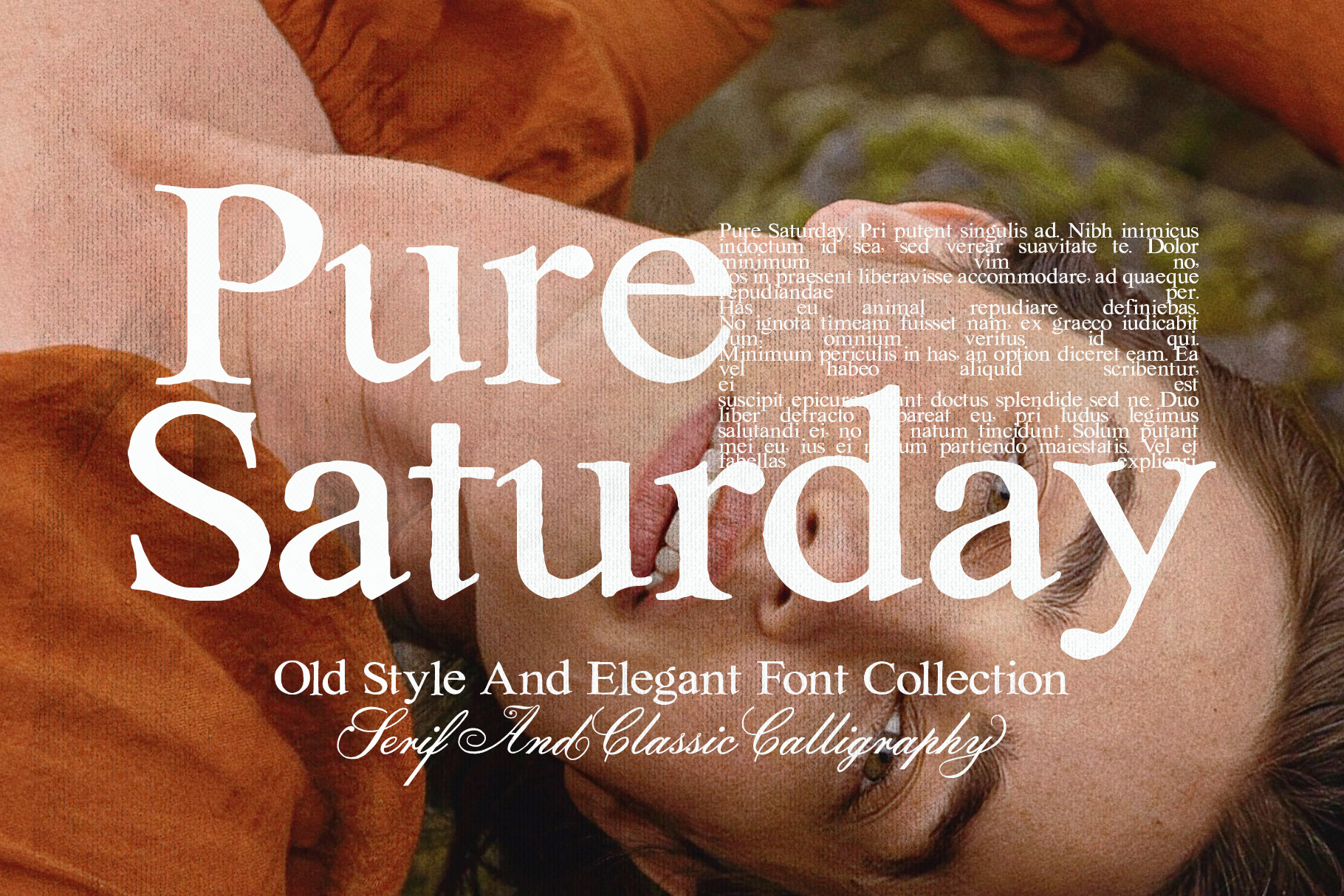
Pure Saturday - Font Duo
Pure Saturday are two classic styled fonts, written with great care to give each character a rough textured feel.
With this font you can create designs such as wedding media, book covers, greeting cards, logos, branding, business cards and certificates, in fact for any design work that requires a classic, formal or luxurious look.